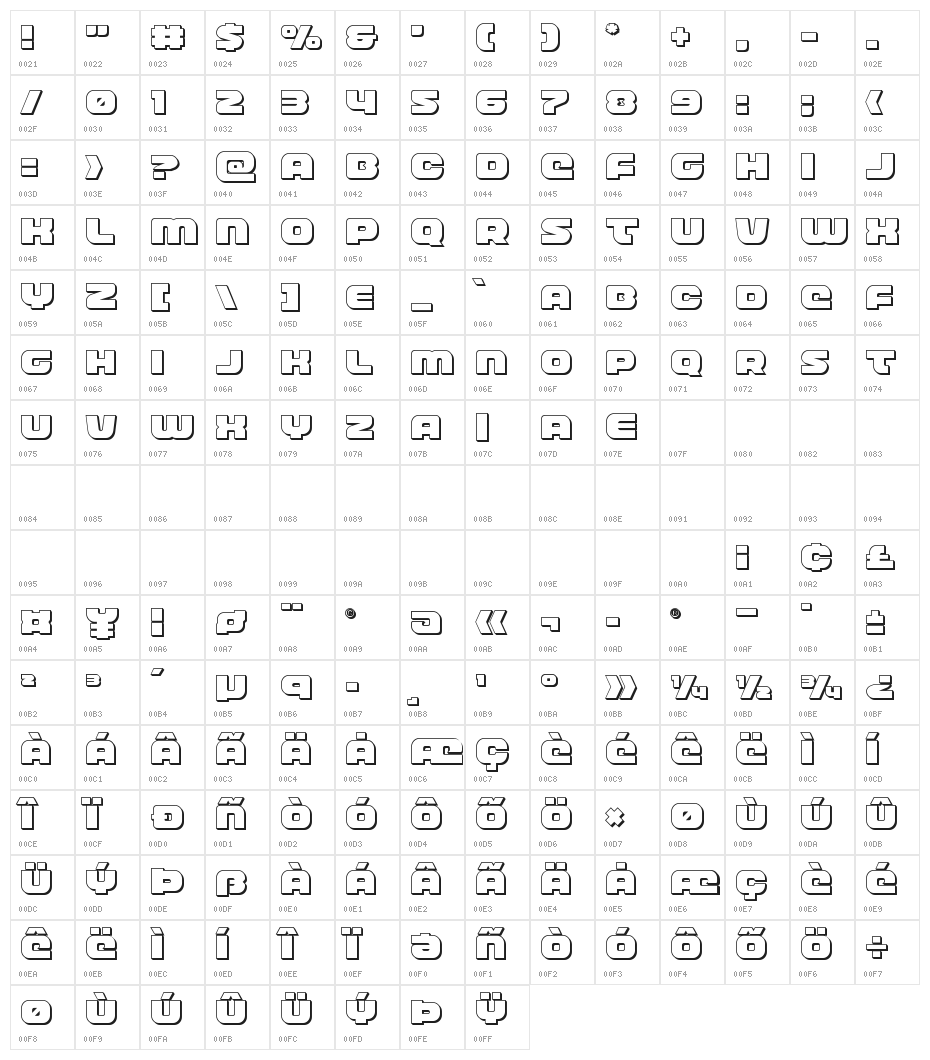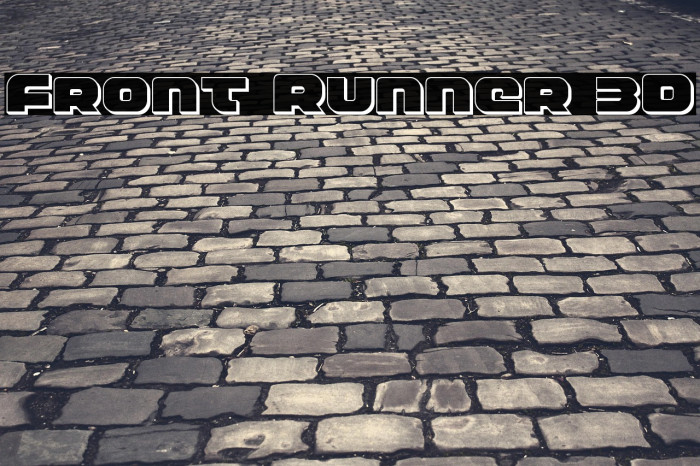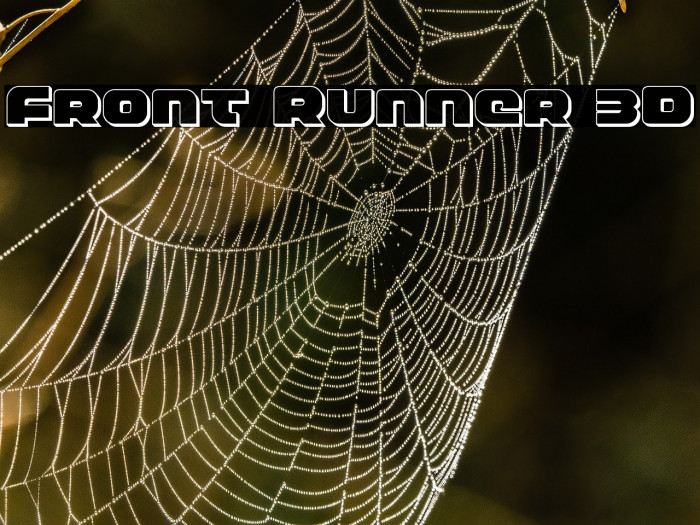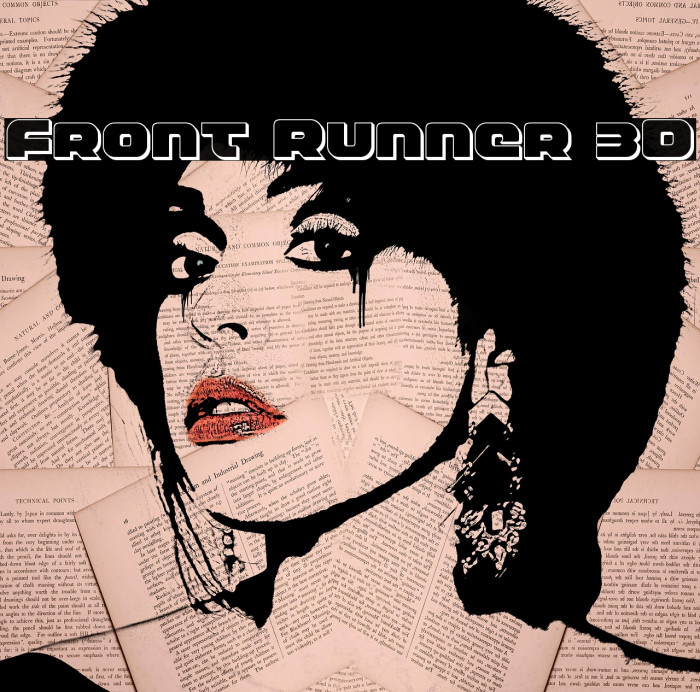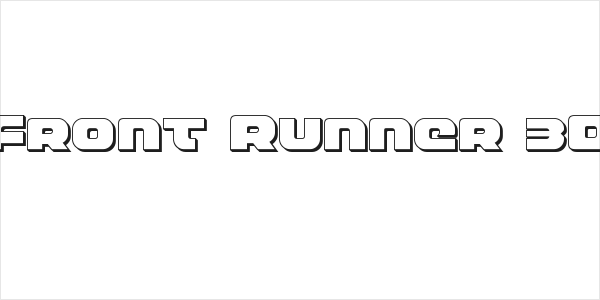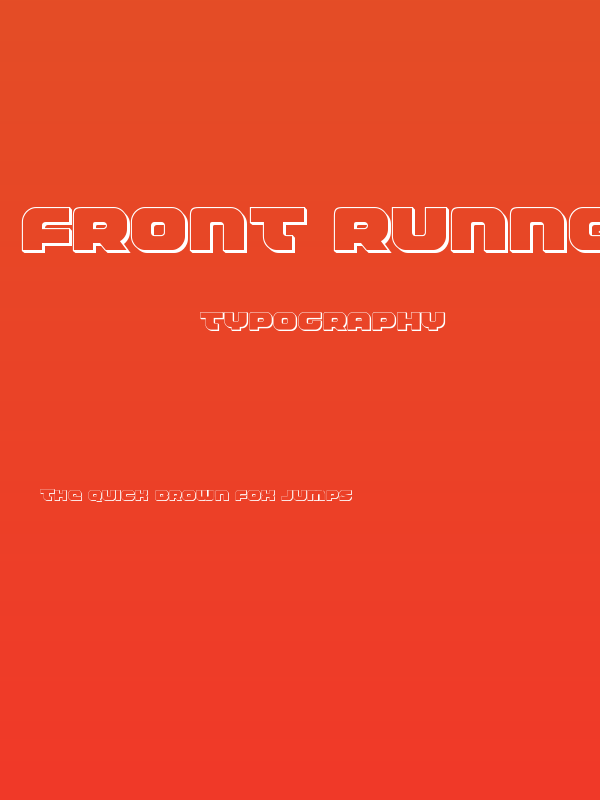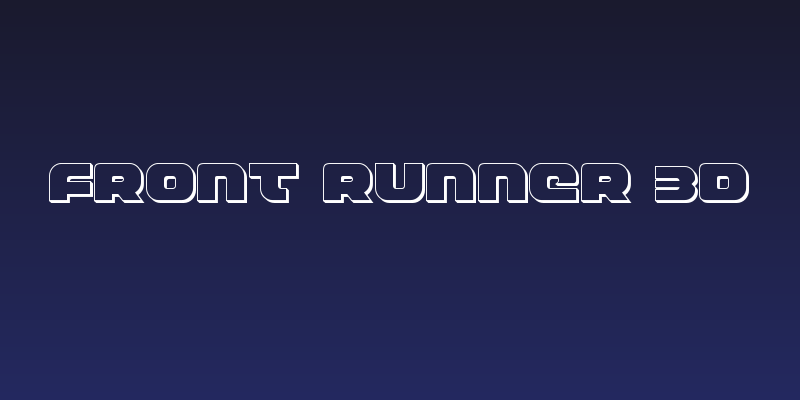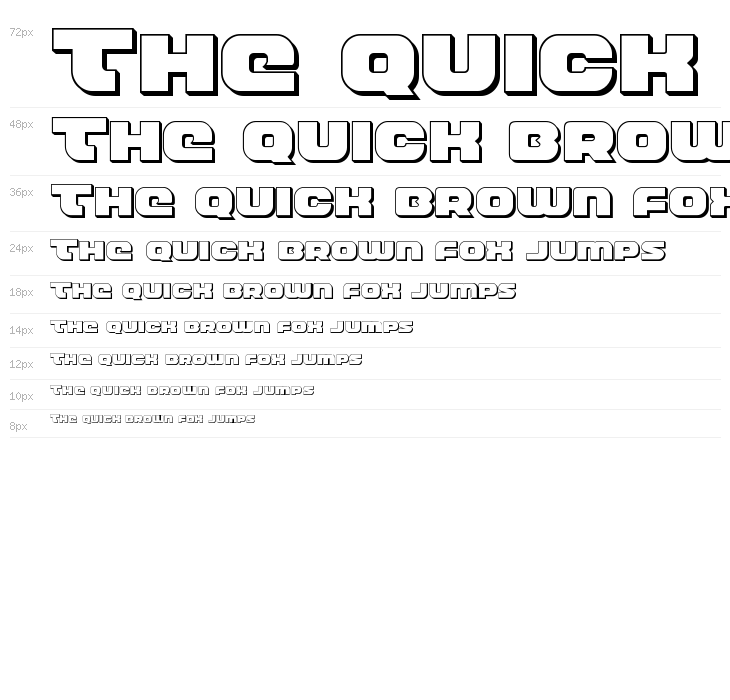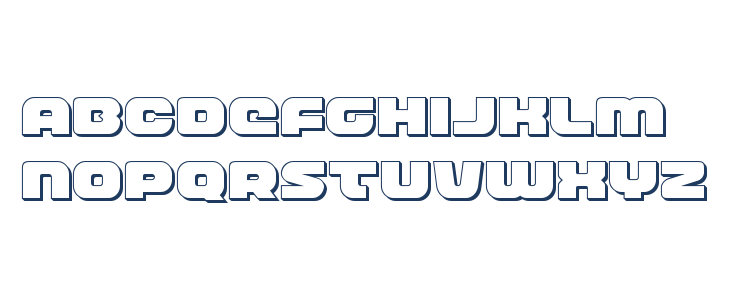
Front Runner 3D Font
Front Runner 3D Description
This font features a bold, three-dimensional style with a strong, geometric presence. The characters are outlined, creating a hollow effect that adds depth and dimension. Each letter and number is constructed with thick, uniform strokes, emphasizing a robust and sturdy appearance. The font maintains a consistent width across all characters, contributing to a cohesive and balanced look. The design is modern and eye-catching, making it suitable for projects that require a bold statement. The special characters are designed with the same three-dimensional effect, ensuring uniformity throughout the font set.
| Proposed Projects | Ideal for headlines, posters, logos, and any design needing a strong, impactful typeface. |